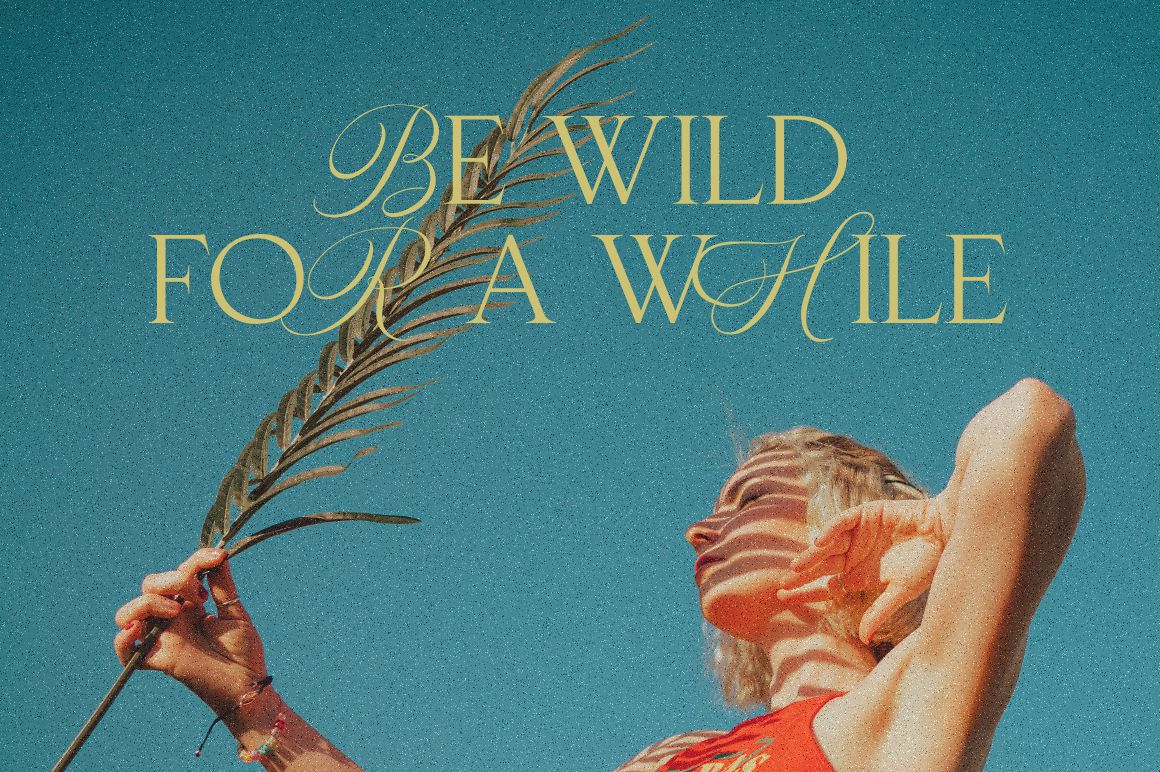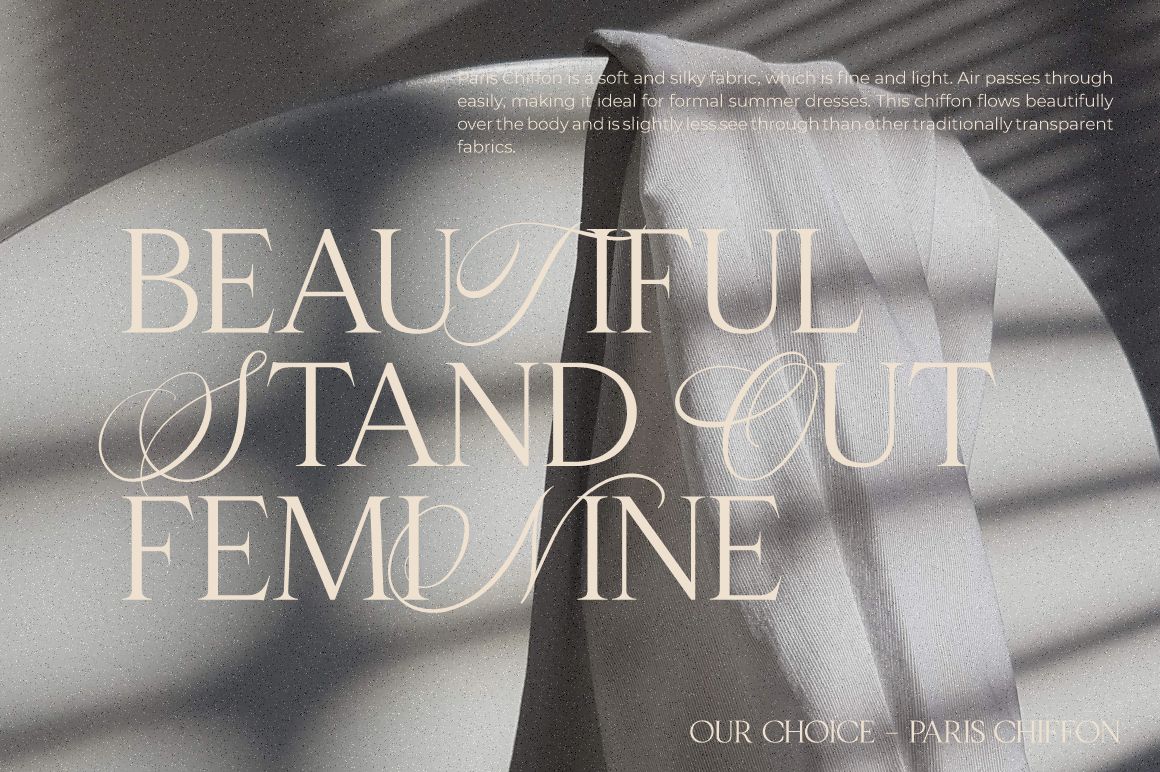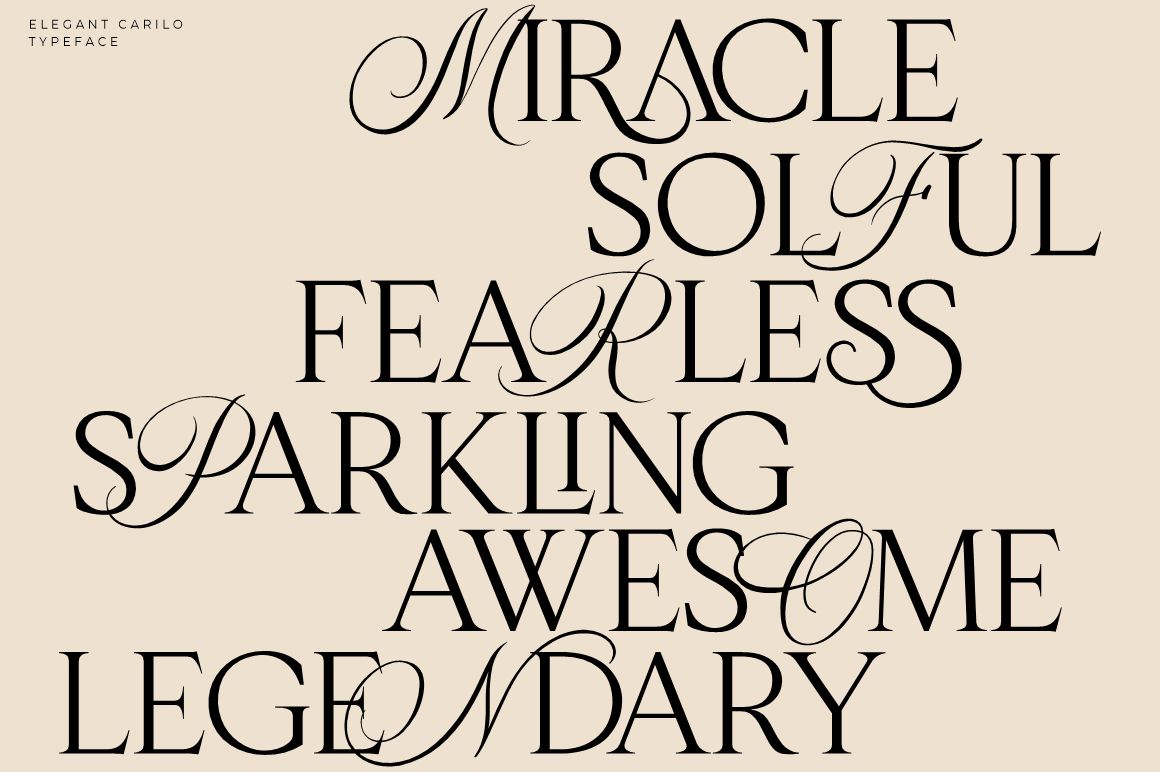
Carilo Display Font
Modern and classy serif that combines two types of typefaces, classic calligraphy and serif fonts. You will also get 20+ ligatures and several stylistic alternates that will make your work look more unique, luxurious and elegant.